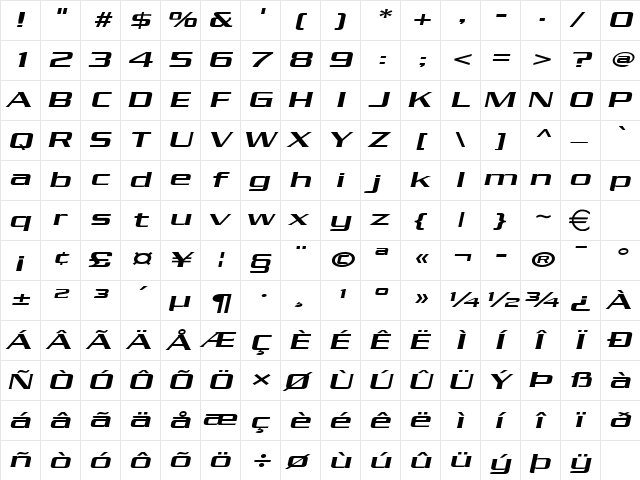
ChaneyExtended Italic Font Preview
ChaneyExtended Italic
ChaneyExtended Italic Font Details
Design Context for ChaneyExtended Typeface
ChaneyExtended is a composed and adaptable typeface that performs quietly and consistently across a wide range of design contexts. The dynamic lean of this cut emphasises speed and emphasis in any layout.
Pro Tip: Use ChaneyExtended for emphasis, pull quotes, and subheadings where its slanted energy can add rhythm to the layout.